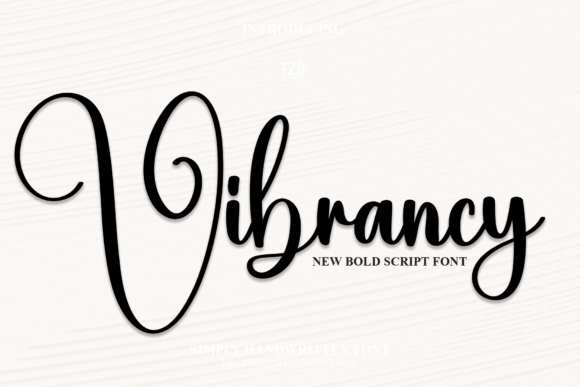
Enter the world of Vibrancy Font, a captivating handwritten font brimming with boldness and exquisite beauty. Elevate your design horizons with this script font family, lovingly crafted to bring your creative visions to life.
Vibrancy Font exudes style, grace, and fluidity, seamlessly elevating the allure of your creations while maintaining a grounded, natural feel. Each stroke of the pen dances across the page, painting a symphony of elegance and sophistication.
Immerse yourself in the artistry of Vibrancy Font, where every letter is a masterpiece, and every word a work of art. Its versatility knows no bounds, effortlessly adapting to a myriad of projects, from personal branding and wedding invitations to social media posts and marketing materials.
With Vibrancy Font, you can confidently express your individuality, injecting a dash of creativity into every endeavor. Unleash your imagination, let your thoughts flow, and allow Vibrancy Font to be your trusty companion on this extraordinary journey of self-expression.
So why settle for ordinary when you can embrace the extraordinary? Embrace Vibrancy Font today and unlock a world of creative possibilities. Let your designs shine with an aura of sophistication, elegance, and timeless beauty.